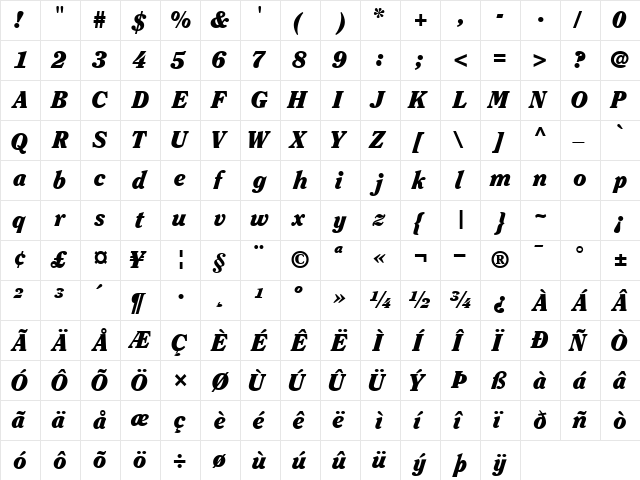
ClearfaceBlackSSK Italic
Design Context for ClearfaceBlackSSK Typeface
ClearfaceBlackSSK offers clean, dependable letterforms without strong stylistic allegiance, making it a practical choice for designers who need flexibility. The dynamic lean of this cut emphasises speed and emphasis in any layout.
Pro Tip: Try ClearfaceBlackSSK for annotation and caption copy alongside an upright companion — the contrast in angle creates a dynamic but ordered typographic system.